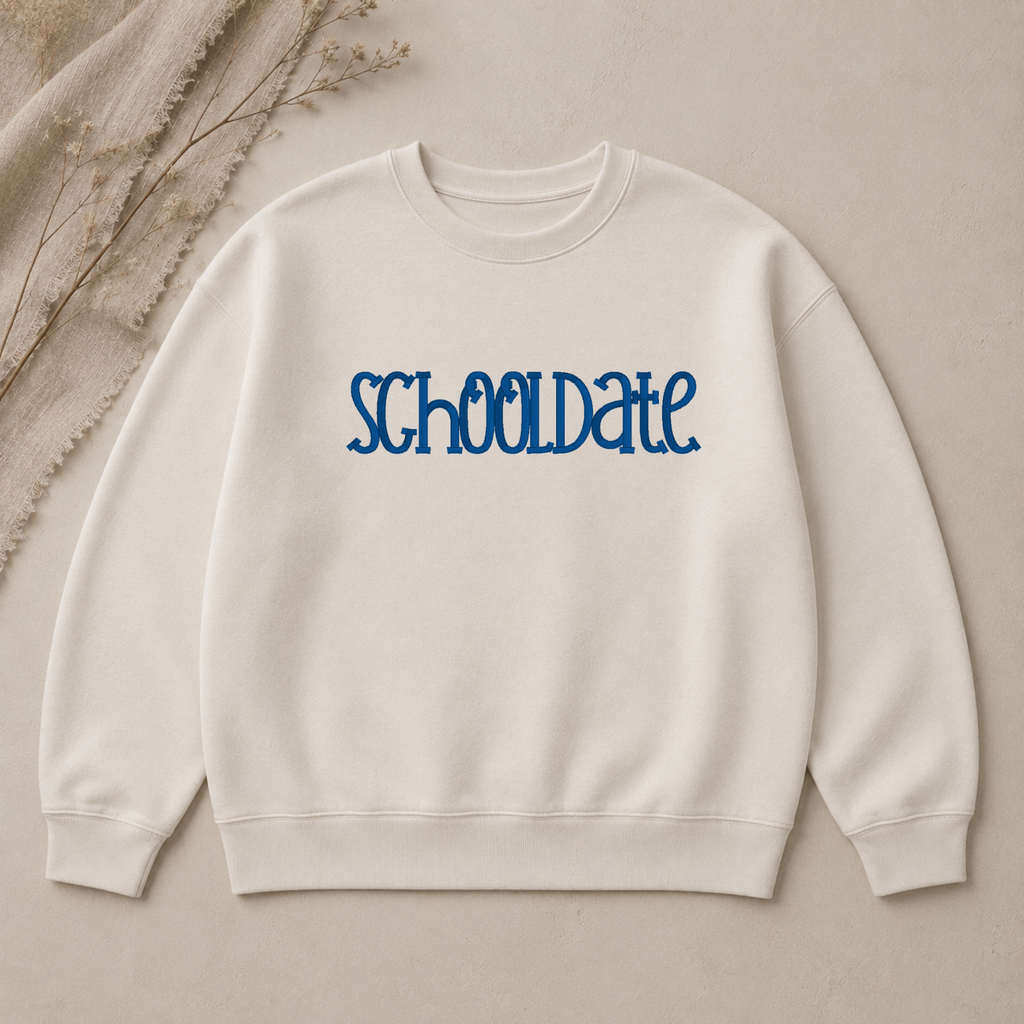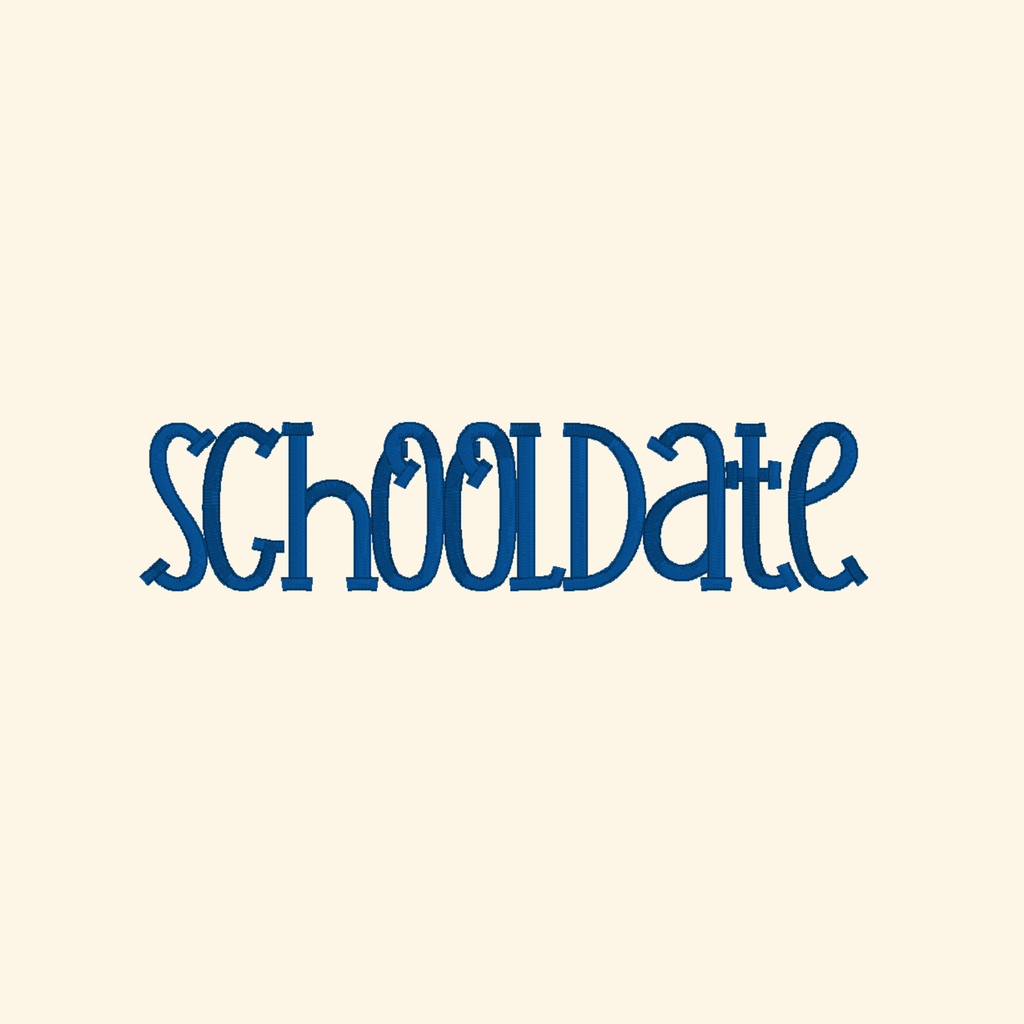
Schooldate embroidery font, Serif font, Machine embroidery font, 7 Formats + 7 Sizes
🪡Schooldate - premium embroidery font.
Take your projects to the next dimension with this dual-color professional machine embroidery alphabet! Specially digitized for high-impact results, this font is the perfect choice for creating any item that requires embroidery.